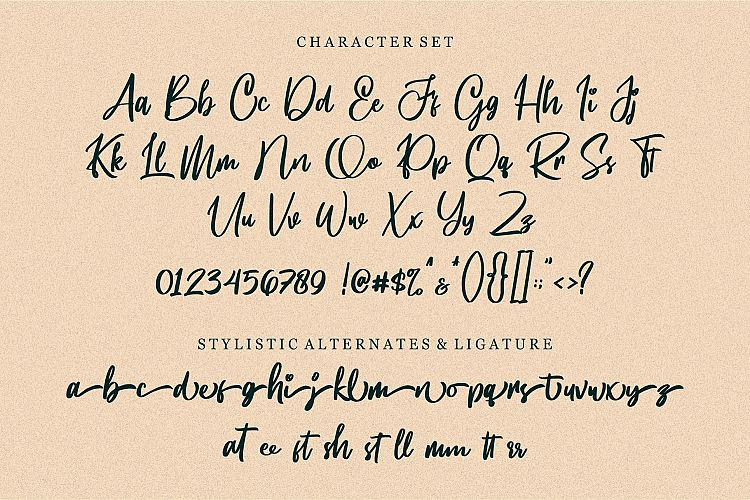
Bestvibes Script Font
Bestvibes Script Demo Font
With its different font styles you can make a lot of harmonious options for the inscription logo design, which will look professional and unique. Just give free rein to your imagination! Introducing Bestvibes Font! Bestvibes designed and shared by Good Java Studio. Bestvibes Script Font is a natural handwritten font, this font Is perfect for logo, invitation, stationery, wedding designs, social media posts, advertisements, product packaging, product designs, label, photography, watermark, special events or anything. Bestvibes comes with full set of uppercase and lowercase letters, numerals, punctuation.